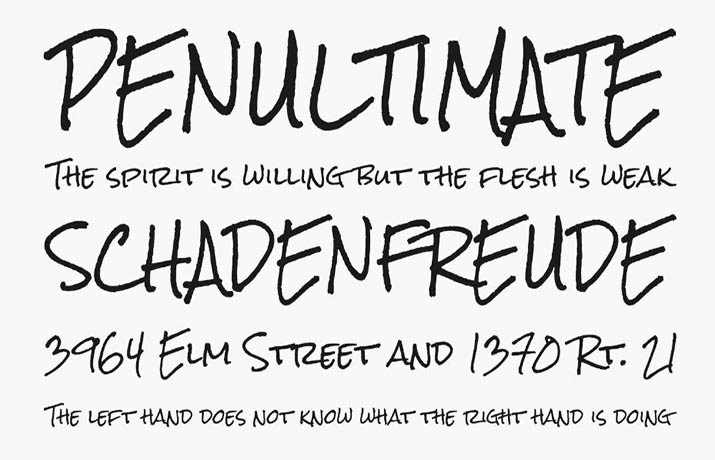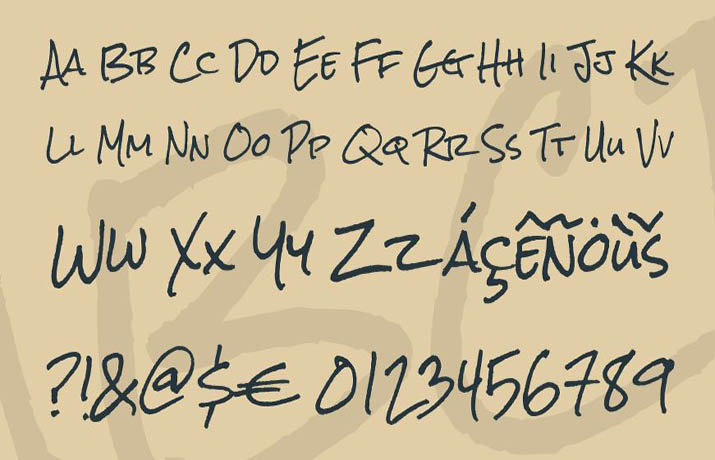
Rock Salt Font is a casual handwritten marker typeface that comes with uneven and slightly quirky letters. It was designed by Squid and published by Sideshow.
All his characters are cool but still have an irregularity in them. Because they were created by hand and used a medium brush to draw them. Moreover, the designer has made these font corners sharp.
Its casual and informal look makes it a great choice for various works such as product designs, product packaging, game titles, t-shirt printing, horror posts, horror quotes, special cards, t-shirt printing, and more.
Features of This Font:
- Uppercase & lowercase letters, numbers, symbols, and punctuation
- 228 glyphs and 505 binary stored kerning pairs
- 68 multilingual languages support
Rock Salt Font (Details)
| Font Name: | Rock Salt Font Family |
| Style: | Handwritten, Casual, Display |
| Font Designer: | Squid |
- The causal style of letters makes it ideal for logos, product packaging, product design, comic covers, game titles, game development, movie posters, unique signs, product design, special event cards, game graphics, product design, and special event cards. Printing on cartoons, titles, headers, titles, flyers, signs, banners, headers, children’s elements, headers, banners, flyers, headers, cards, etc.